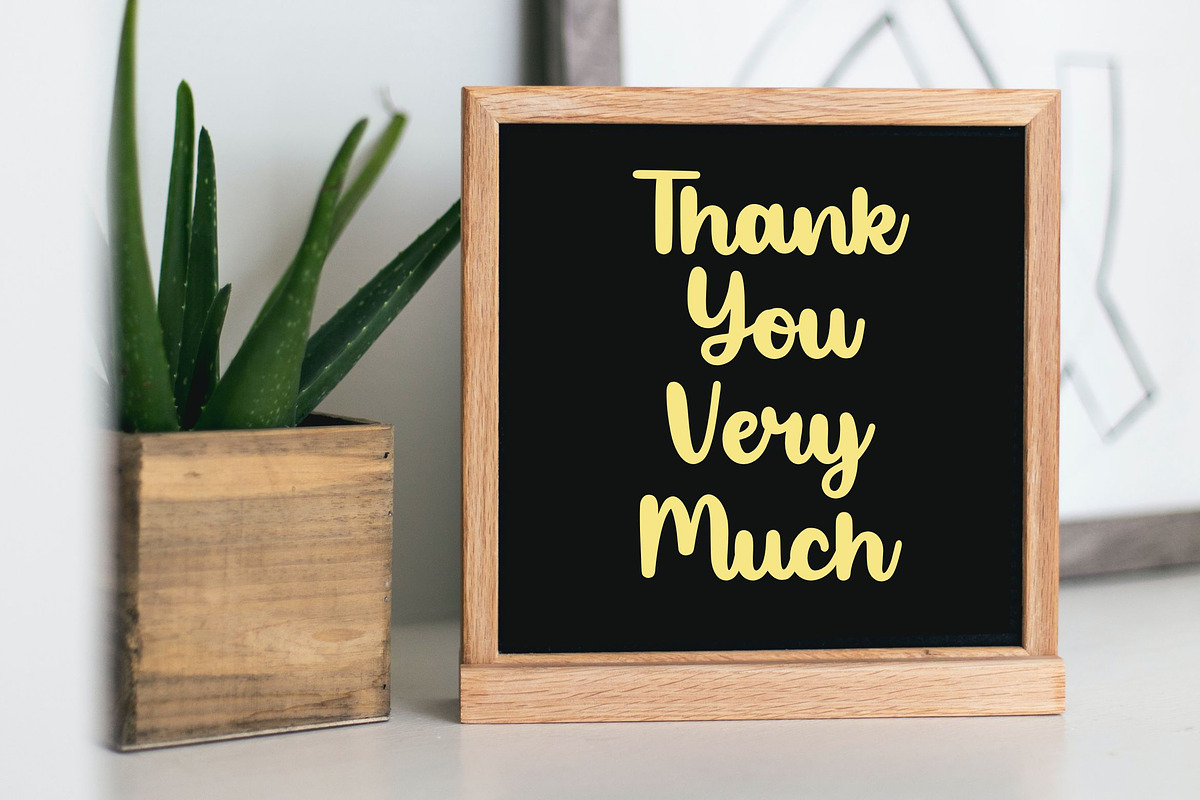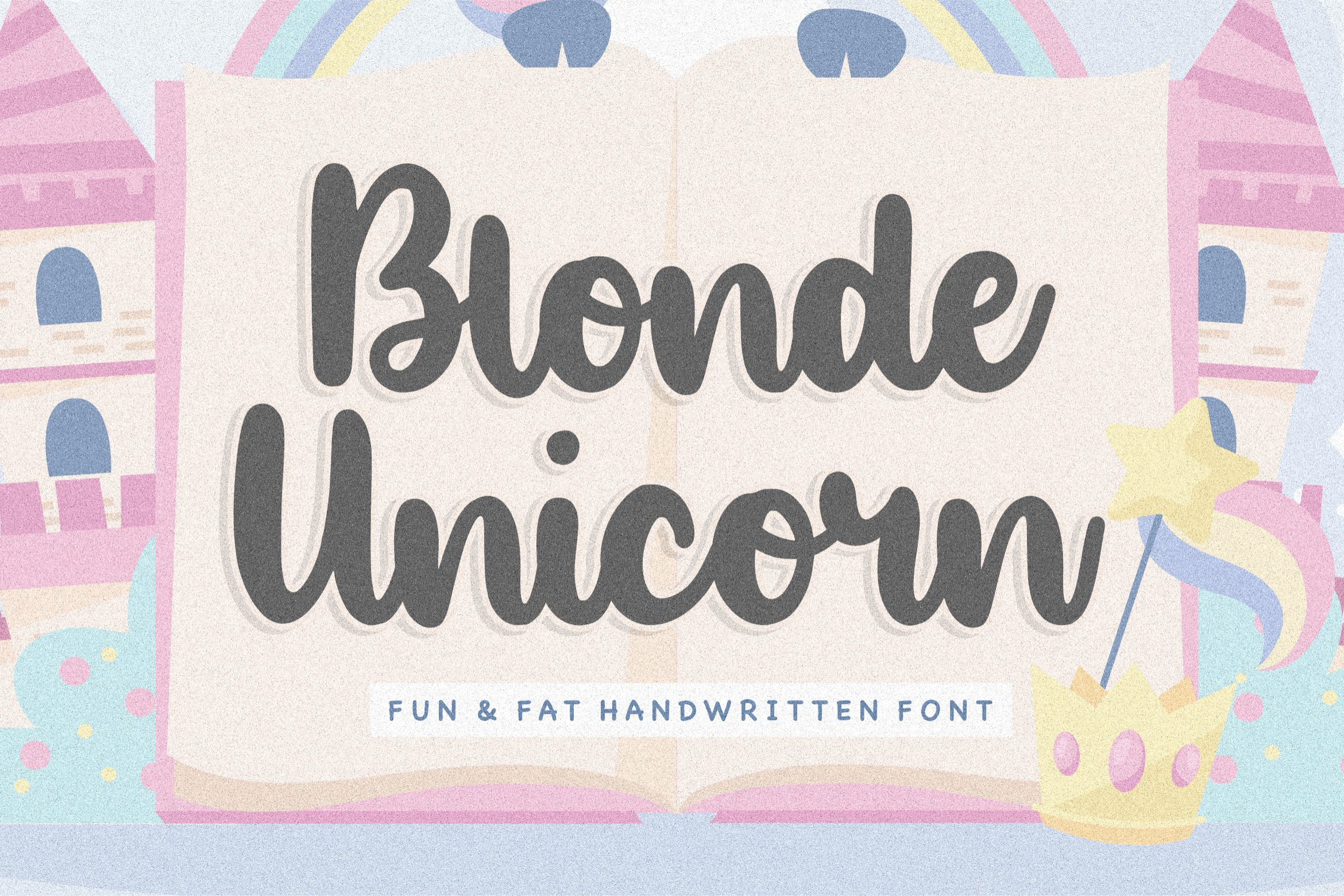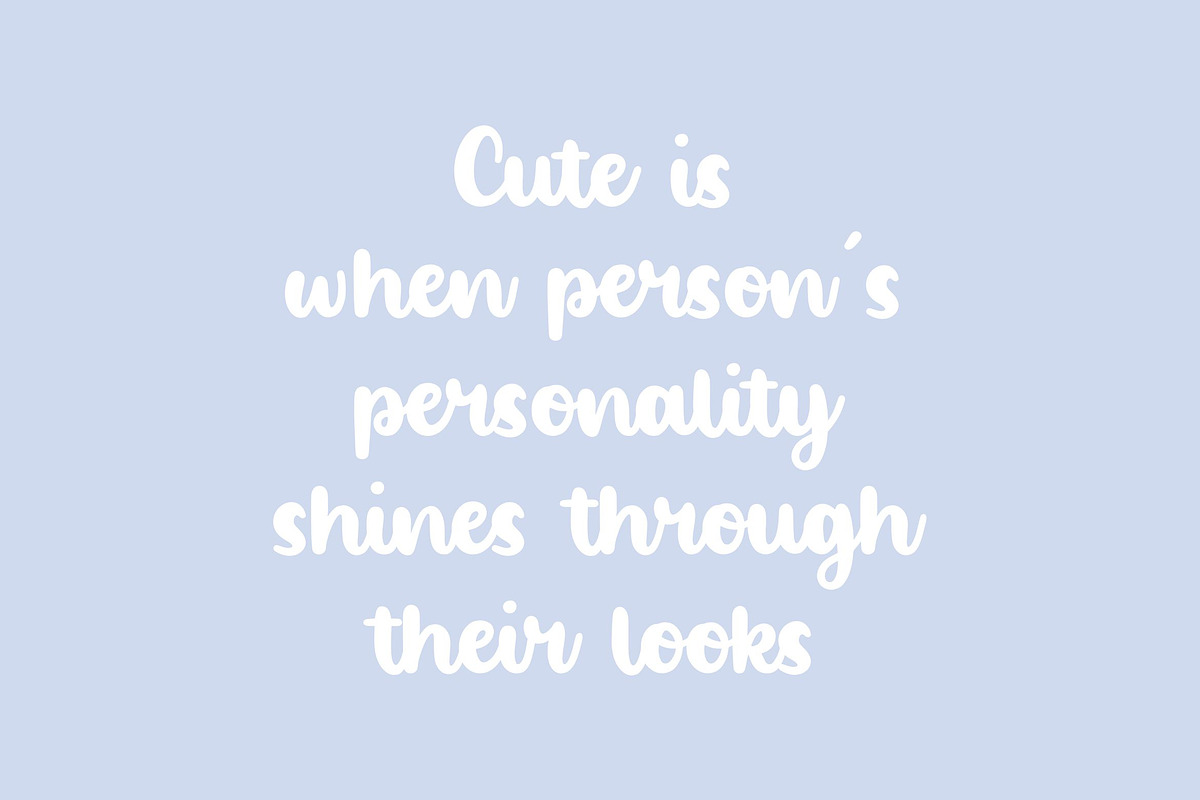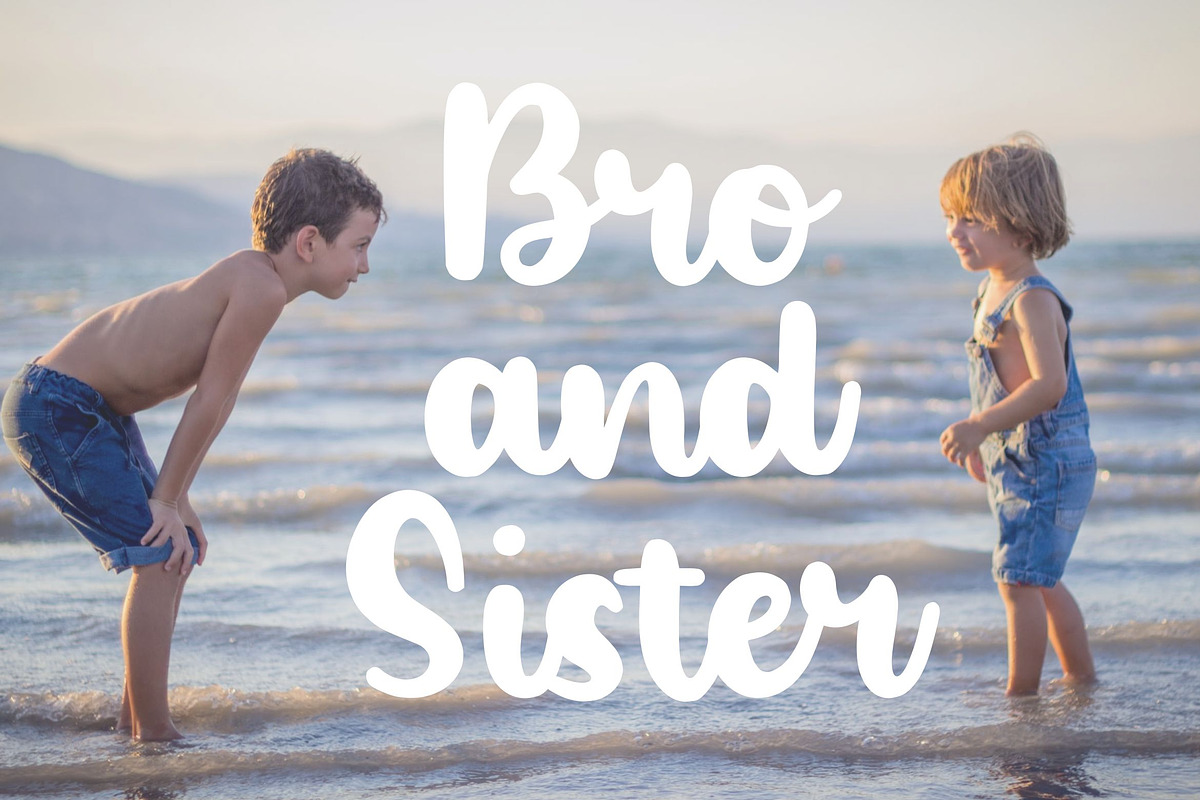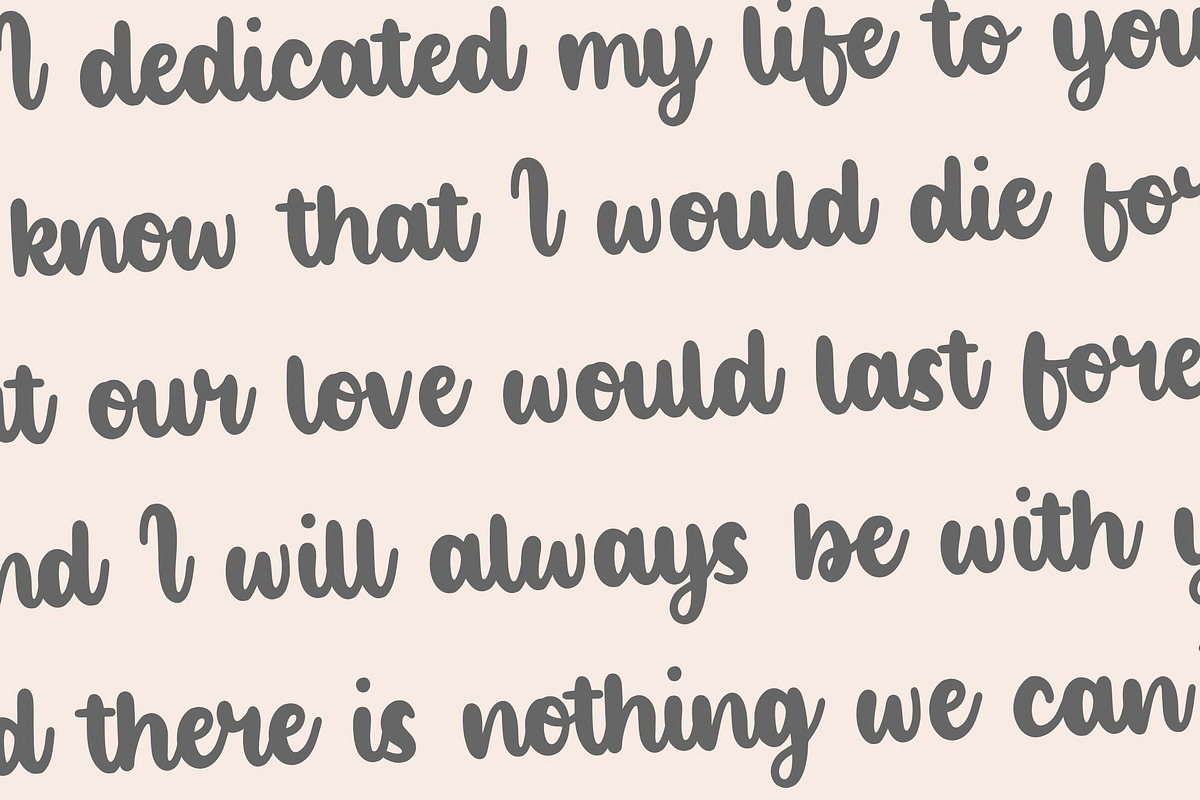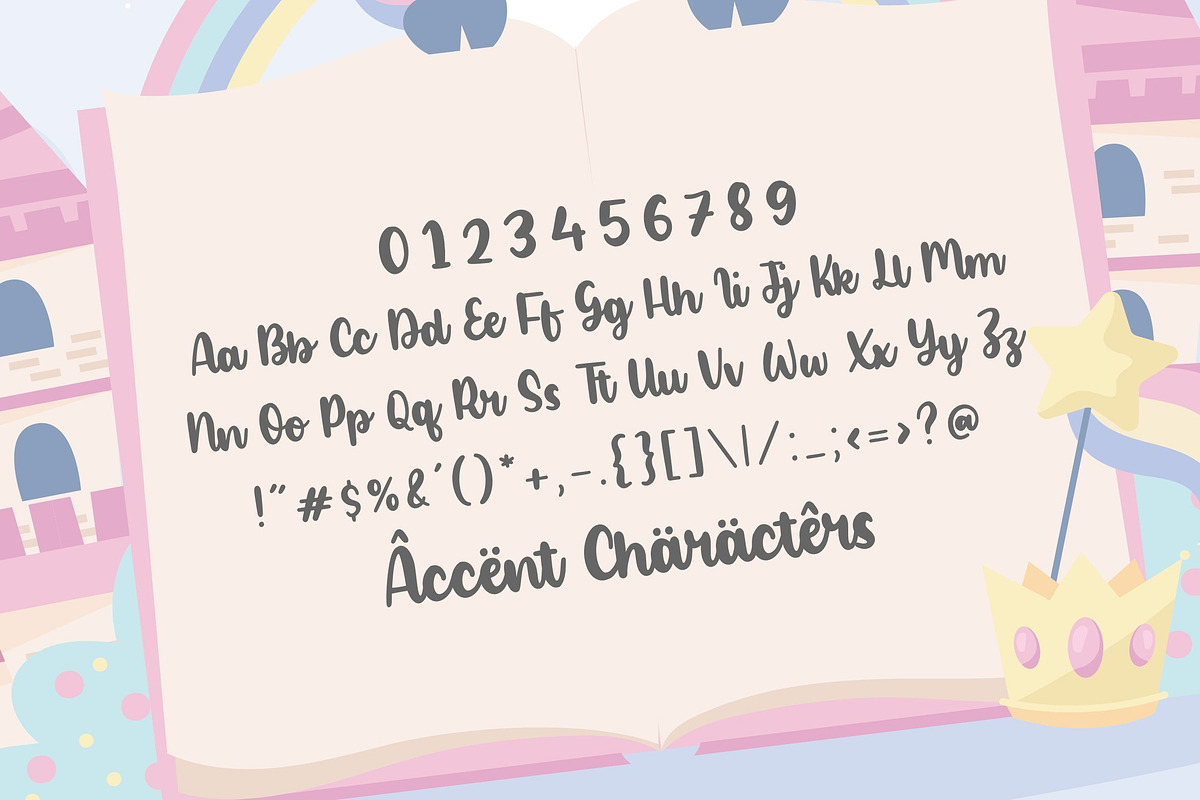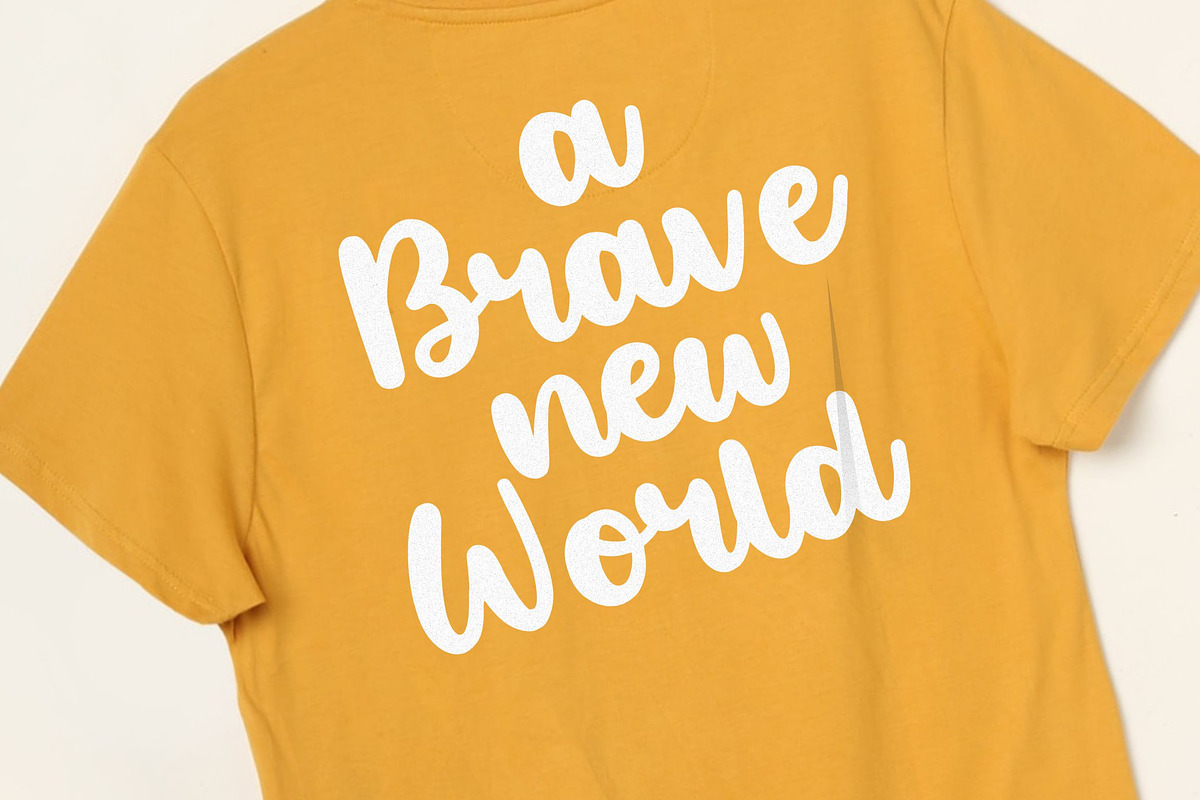
Blonde Unicorn - Handwritten Font
Proudly Present, Blonde Unicorn Font
Blonde Unicorn is a sweet and flowing handwritten font. Incredibly versatile, this font fits a wide variety of designs. Add it to your creative ideas and notice how it makes them come alive!
- also multilingual support